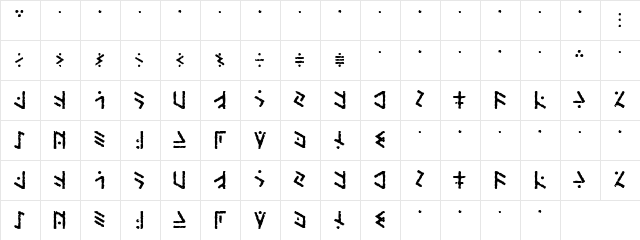
Temphis Brick Regular
Design Context for Temphis Brick Typeface
Temphis Brick is a composed and adaptable typeface that performs quietly and consistently across a wide range of design contexts.